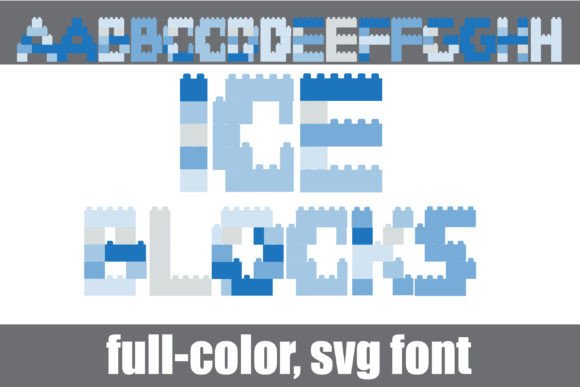
Ice Blocks: A Playful Display Font for Winter Projects
When the air gets crisp and the first snowflakes start to fall, many of us feel the pull to refresh our designs with a seasonal touch. Ice Blocks is a premium font that answers that call perfectly. It’s not just a typeface; it’s a visual element built from colorful, dimensional building blocks, capturing the playful spirit of winter in a uniquely modern way. This creative font moves beyond simple text, turning headlines into engaging graphics.
The core of Ice Blocks' appeal lies in its construction. Each letterform is assembled from what looks like stacked, translucent ice cubes or colorful building bricks. The default winter color palette is a thoughtful mix of cool blues, soft lavenders, and crisp whites, evoking a serene, snowy landscape. This isn't a flat, one-dimensional display font. The subtle shading and blocky edges give it a tangible, almost tactile quality. For designers looking for versatility, an alternate case provides access to a broader spectrum of colors through your system's character map or software like Silhouette Studio, allowing you to shift the mood from frosty to festive in an instant.
Where Ice Blocks Truly Shines
Its personality is inherently joyful, nostalgic, and creative. This makes Ice Blocks an exceptional choice for projects aiming to evoke warmth, childhood wonder, or a crisp, modern winter aesthetic. It’s a fantastic tool for:
- Logo Design & Brand Identity: Perfect for seasonal brands, toy shops, bakeries during the holidays, or a children's event planning service. It can establish a brand identity that is instantly recognizable and full of character.
- Packaging Design: Imagine this font on a hot cocoa mix box, a holiday gift tag, or a frozen treat package. It communicates the product's essence at a single glance, making it a powerful tool in packaging design.
- Digital & Social Media: Ice Blocks is a scroll-stopper for social media graphics. Use it for Instagram story headers, sale announcements, or festive banners. It injects immediate personality into web design elements like hero sections for seasonal promotions.
- Print & Publishing: In editorial design, it’s a showstopper for magazine cover lines, chapter titles in a holiday cookbook, or the headline of a festive newsletter. It brings a tactile, crafty feel to print.
- Crafting & Personal Projects: For hobbyists and crafters, especially those using Silhouette or Cricut machines, Ice Blocks is a gem. It’s ideal for creating custom cards, party decorations, scrapbook layouts, and vinyl decals with a professional, colorful finish.
Practical Guidance for Using Ice Blocks
Choosing the right typeface is a strategic decision. Ice Blocks is not a sans serif font for long paragraphs or a serif font for traditional reports. It’s a specialist. Here’s how to evaluate its fit and use it effectively.
Evaluate the Project's Tone: Does your project call for whimsy, nostalgia, or a strong seasonal hook? If yes, Ice Blocks is a strong contender. If the goal is corporate seriousness or minimalist elegance, you’ll want to look elsewhere. Its strength is in its specific, evocative personality.
Font Pairing is Key: Because Ice Blocks is so visually dense and colorful, it demands a quiet partner. Pair it with a clean, neutral sans serif font like Lato, Open Sans, or Montserrat for body text. This creates a clear visual hierarchy, allowing the headline to sing while the supporting text remains highly readable. Avoid pairing it with other ornate script fonts or handwritten fonts, which would create visual chaos.
Test for Readability: While stunning, full-color fonts require careful consideration. Always test your design at the intended size. A long headline in Ice Blocks might become challenging to read. It works best for short, impactful phrases—a brand name, a two-word headline, a call-to-action. For logo design, ensure it remains legible when scaled down to a favicon or social media profile picture.
Leverage the Alternate Case: Don’t forget the included alt case. This feature is a huge value-add. If the cool winter palette doesn’t match your project, switch to the alternate characters for warmer or brighter color options. This flexibility extends the font’s life beyond a single season.
In the landscape of modern typography, Ice Blocks fills a specific niche with charm and technical sophistication. It’s more than just letters; it’s a design element that can define a campaign, elevate a product, and engage an audience on an emotional level. Used thoughtfully, it’s a powerful tool to add a memorable, playful, and professionally polished touch to your winter-themed creations.